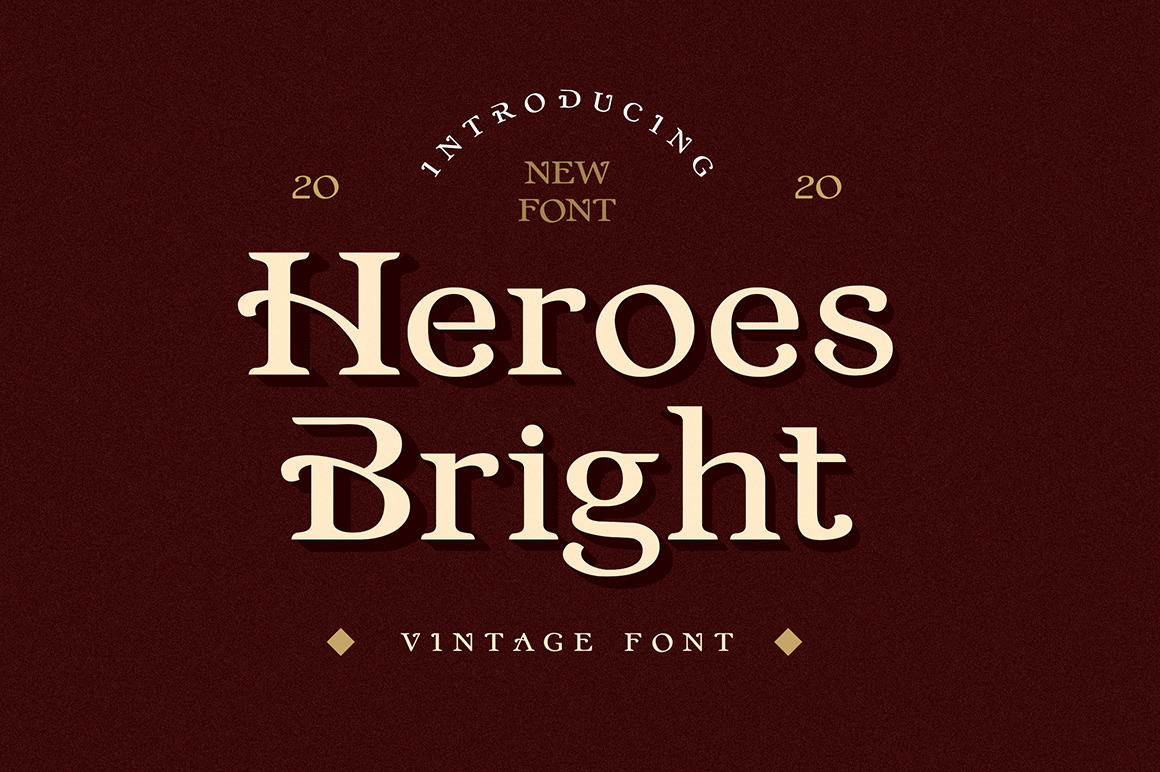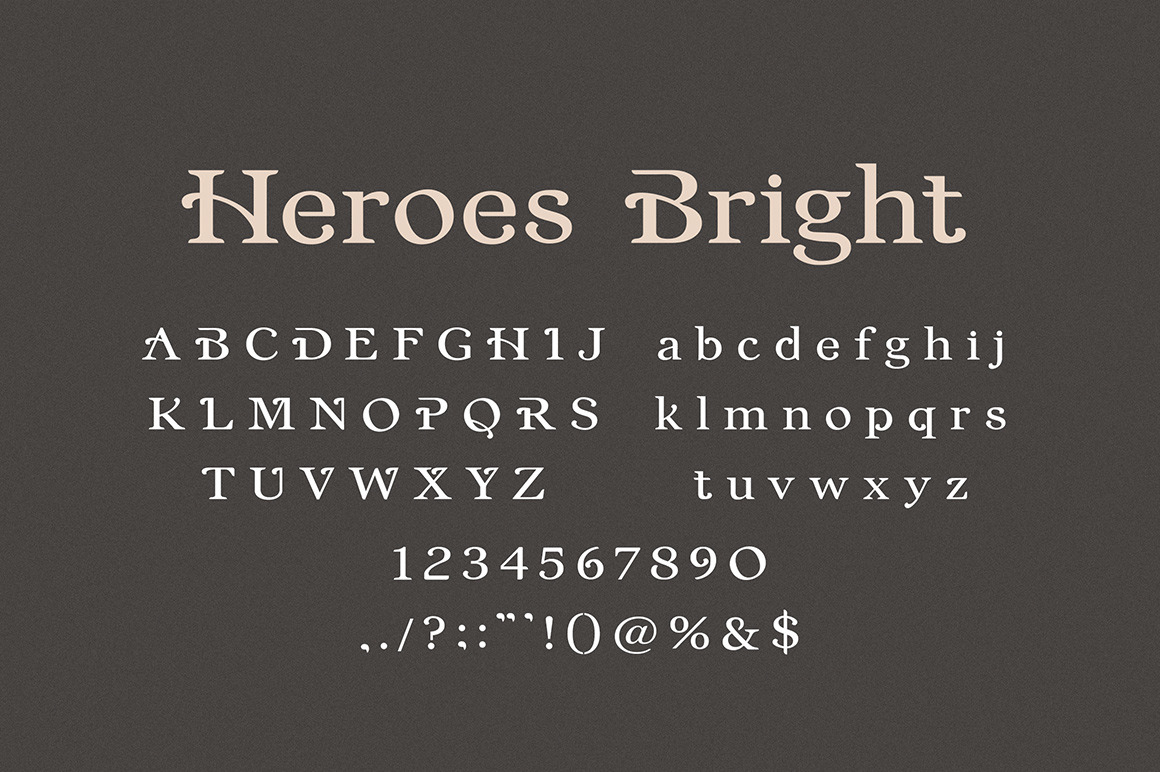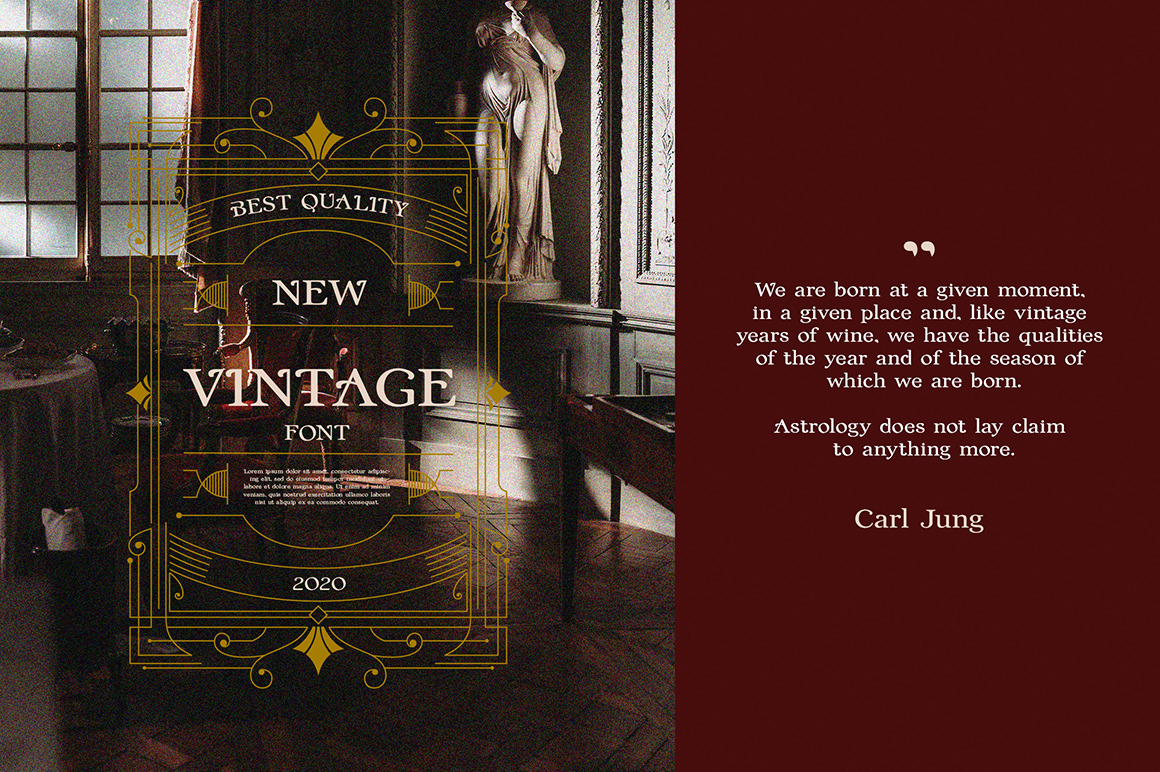
Heroes Bright - Vintage Font
Heroes Bright is a Display Font with a Serif typeface with a vintage style. This font is inspired by everyday life where antiques/vintage are back in the fun again.
This font is also suitable for Clothing Brands, Product Labels, Logo Types, Packaging, Fashion, and more.
Main Features:
+ Uppercase & Lowercase letters
+ Numbering and Punctuation